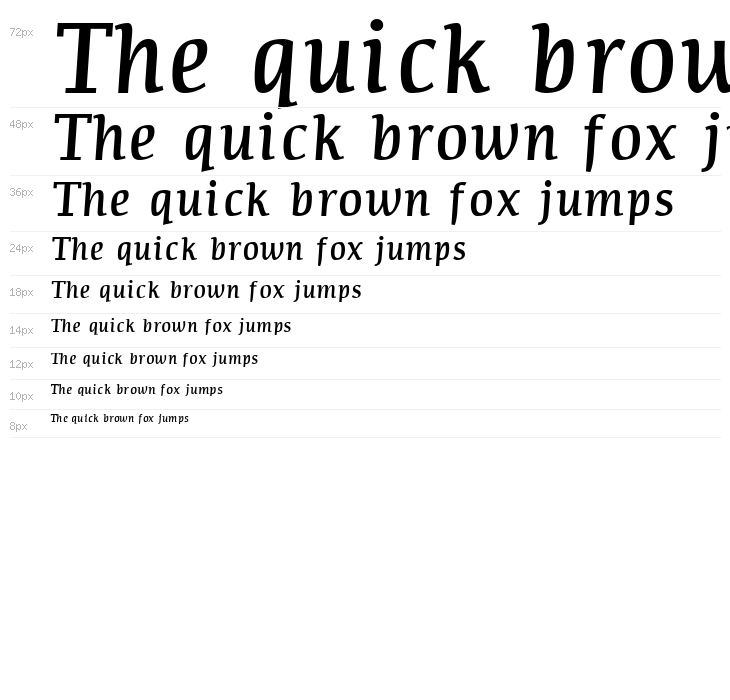
Communist Italic Font
Communist Italic Description
This font features a classic serif style with a distinct italic slant, giving it a dynamic and elegant appearance. The serifs are pronounced, adding a traditional touch, while the italic angle introduces a sense of motion and sophistication. The uppercase letters are bold and commanding, while the lowercase letters maintain a consistent flow with slightly rounded edges. Numbers are clear and legible, making them suitable for various applications. The special characters are well-integrated, maintaining the overall aesthetic of the font. This font is versatile, suitable for both formal and creative projects, offering a blend of tradition and modernity.